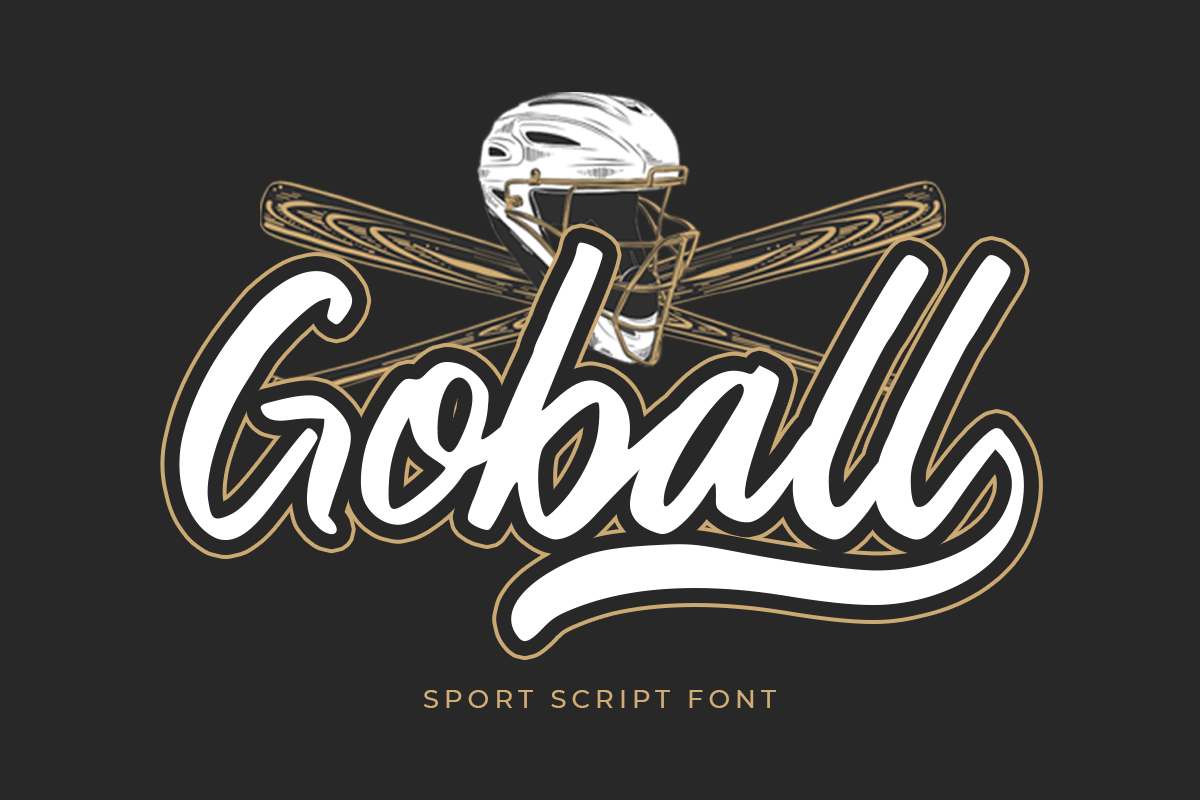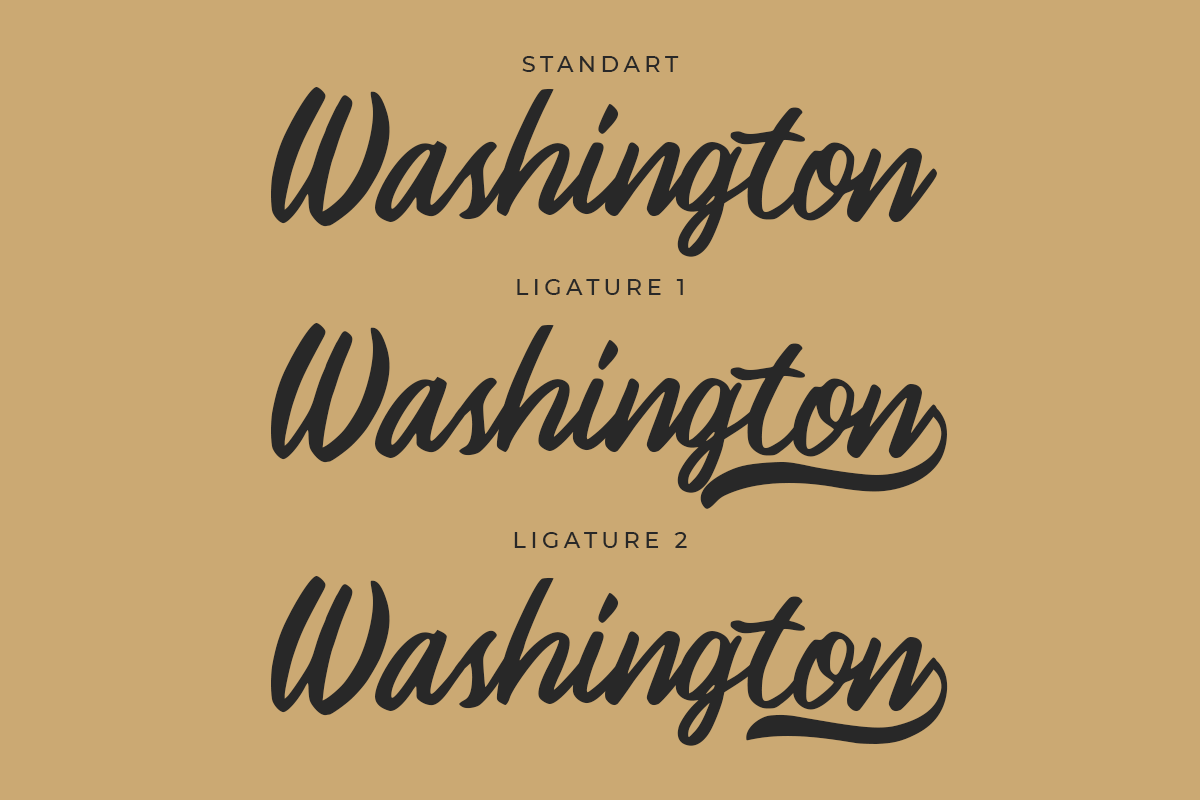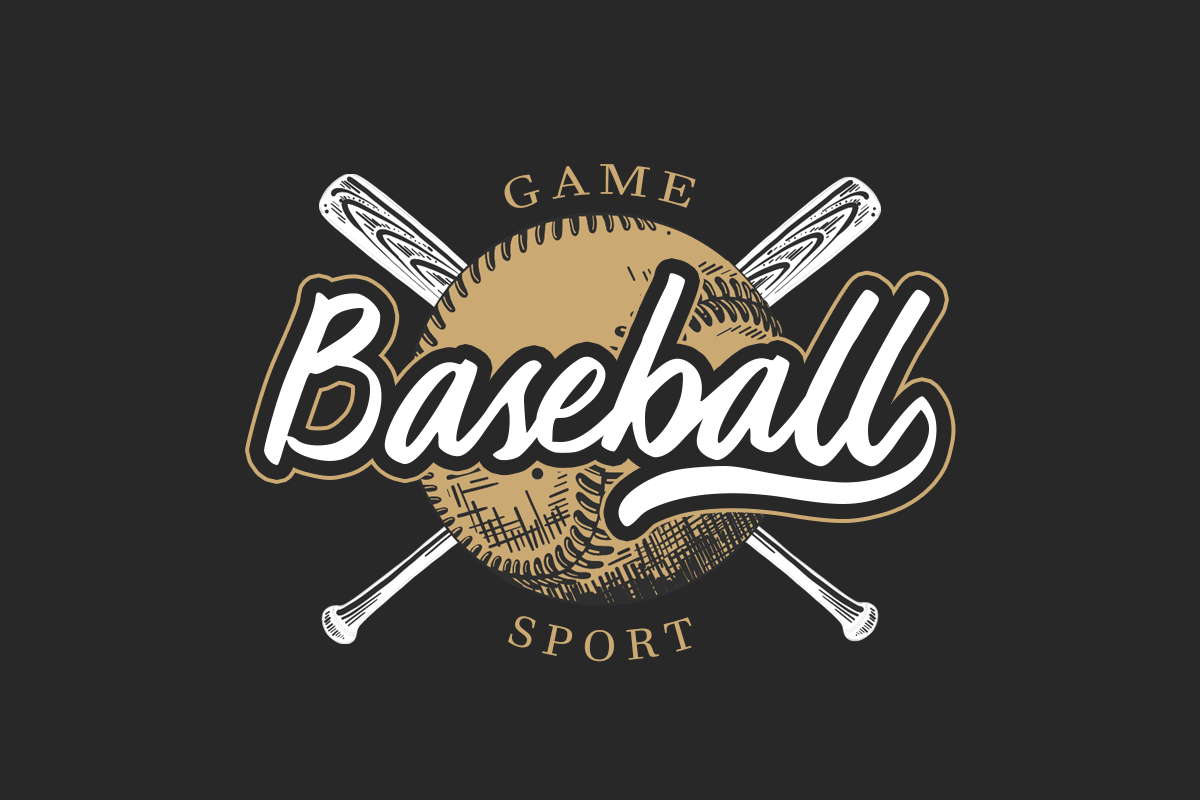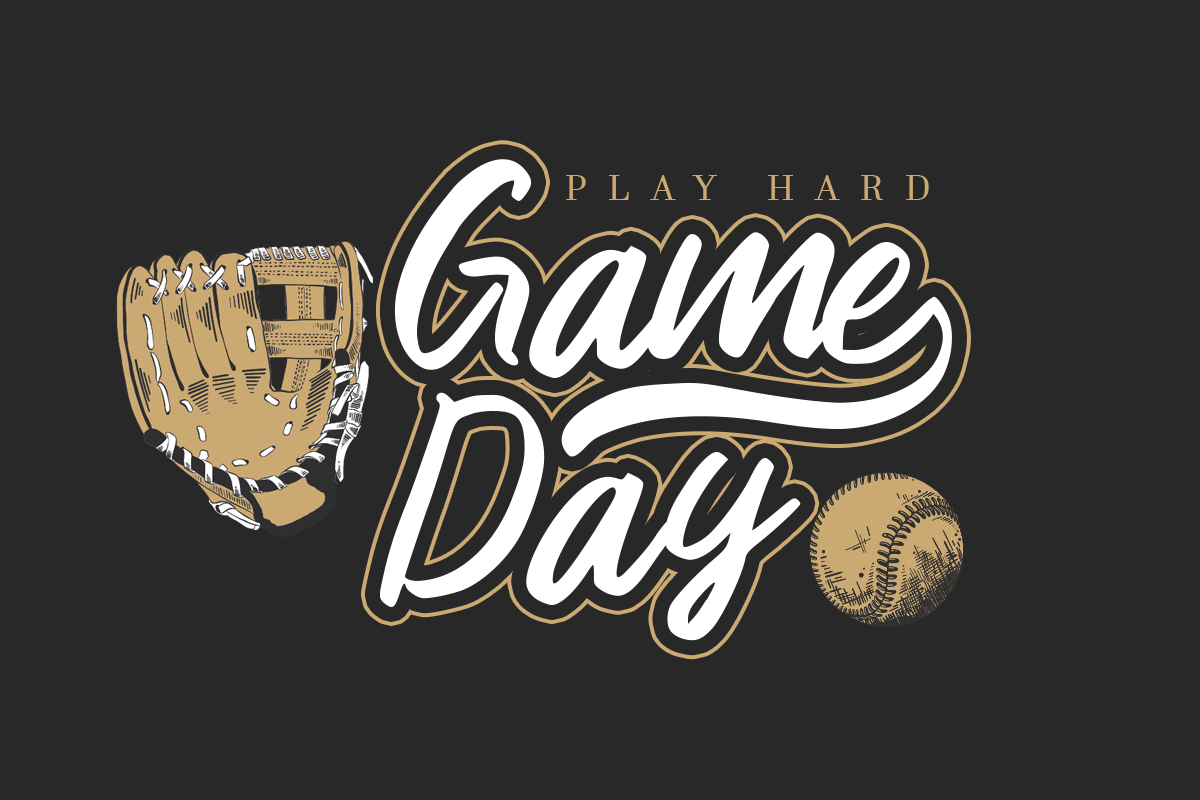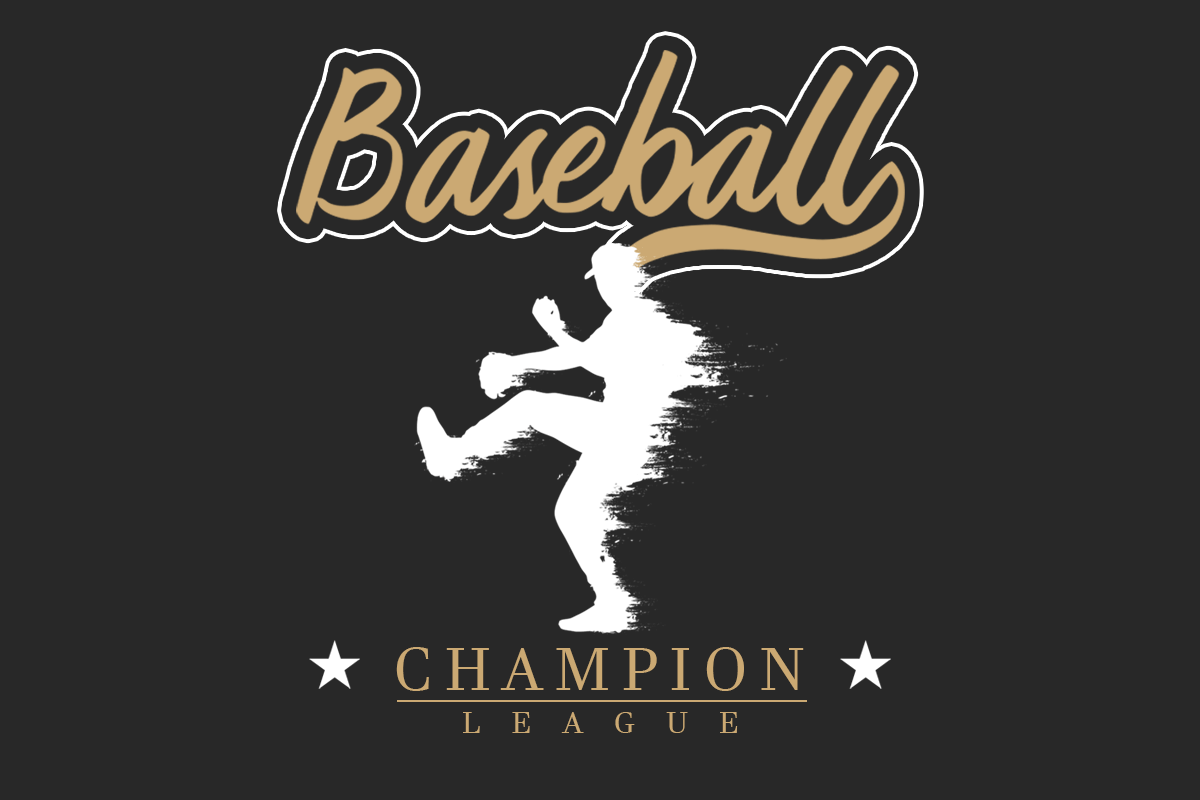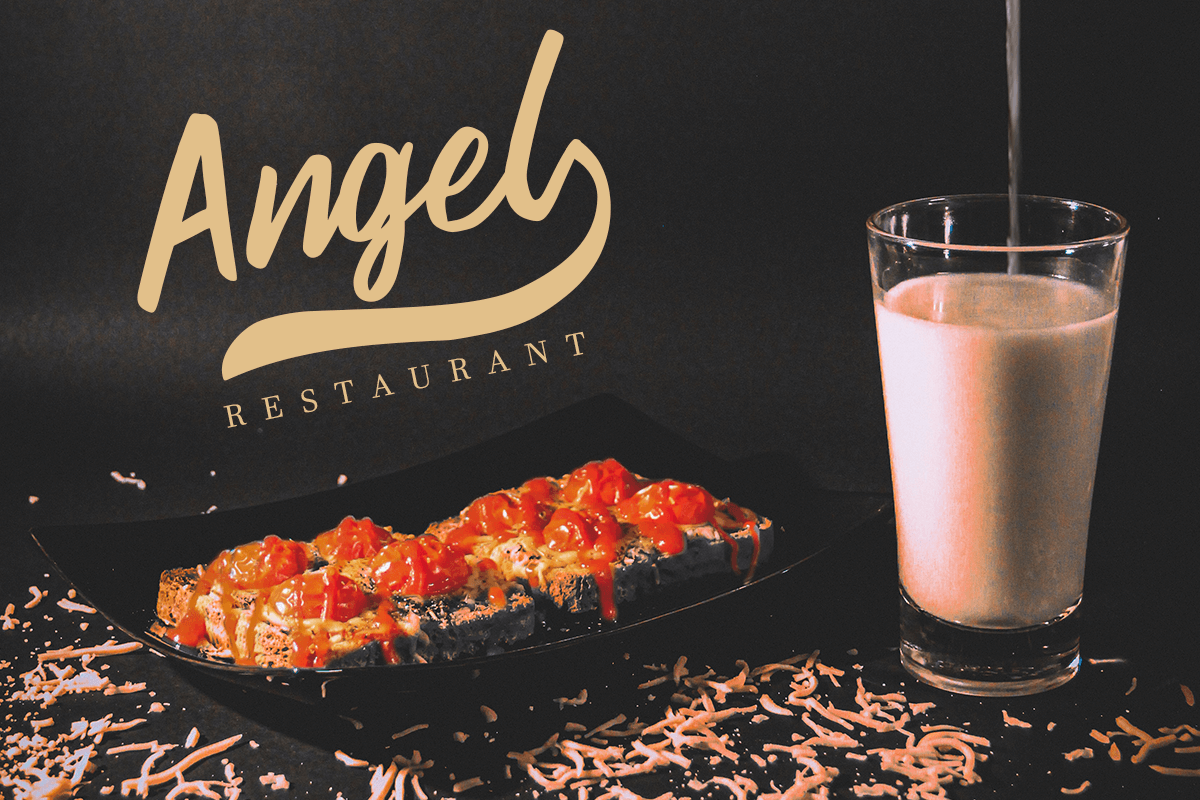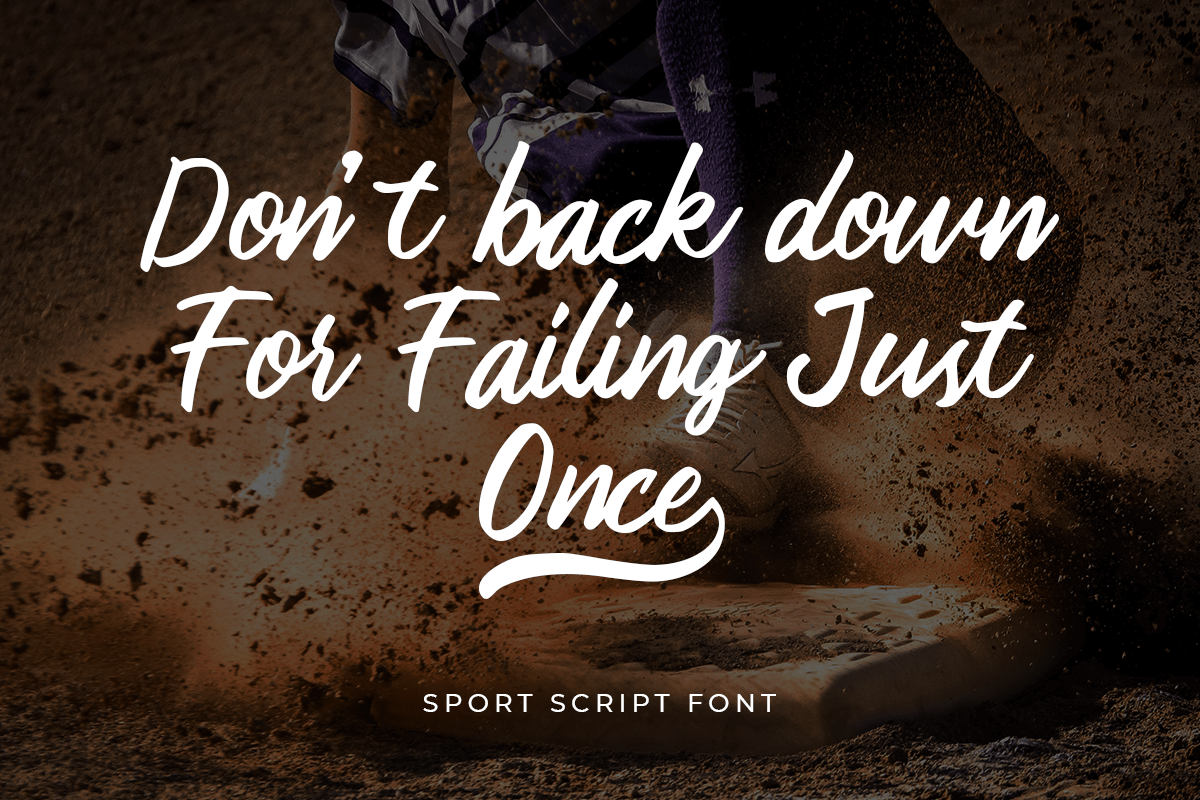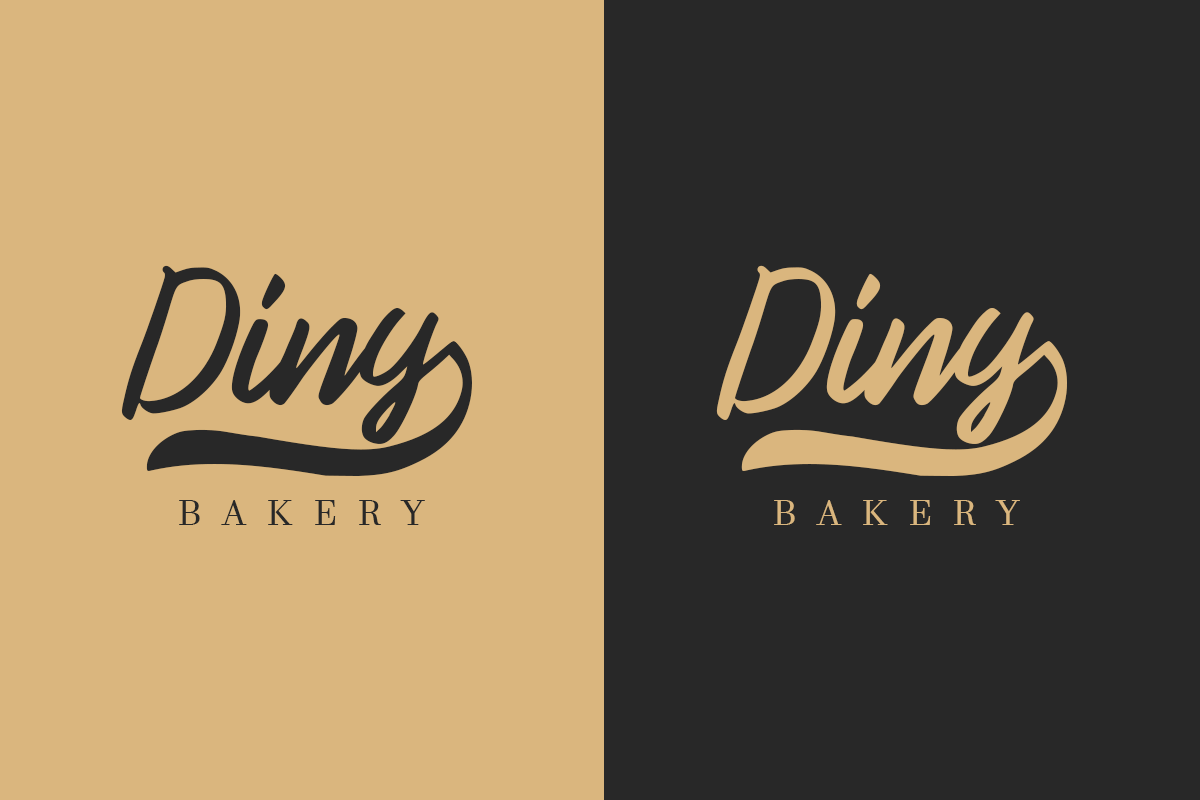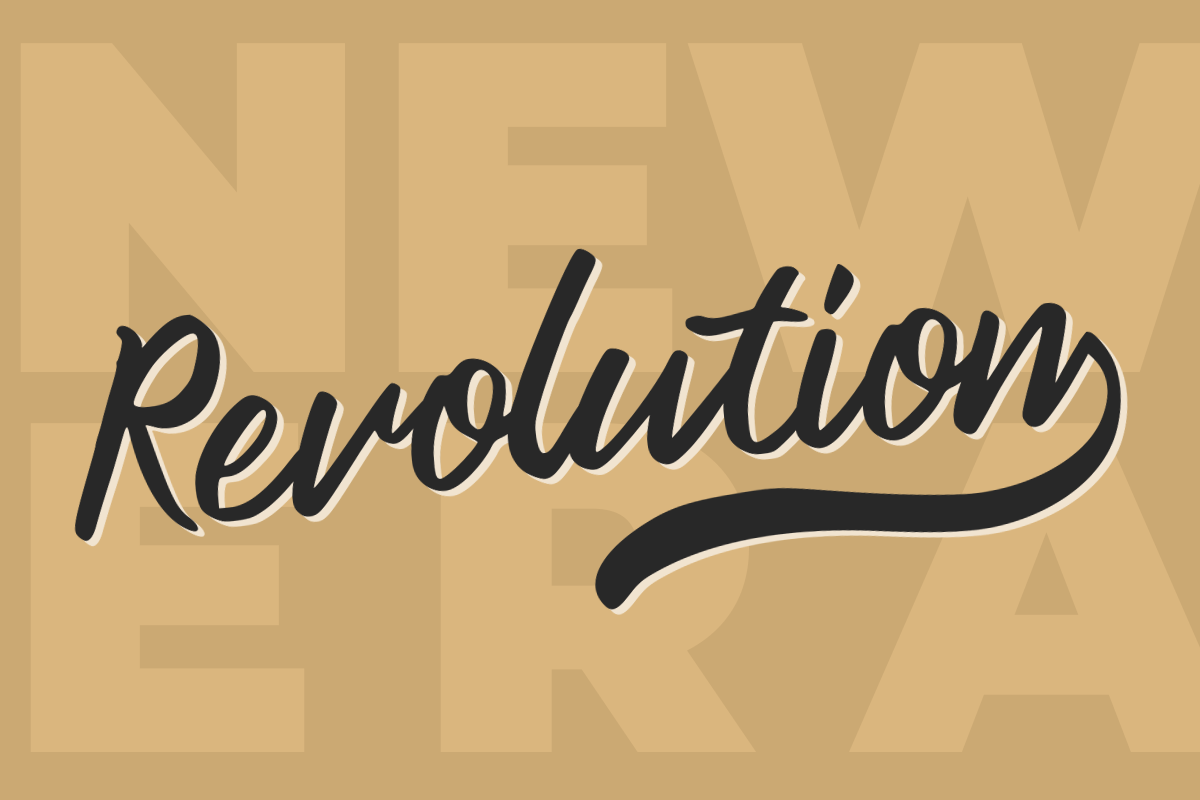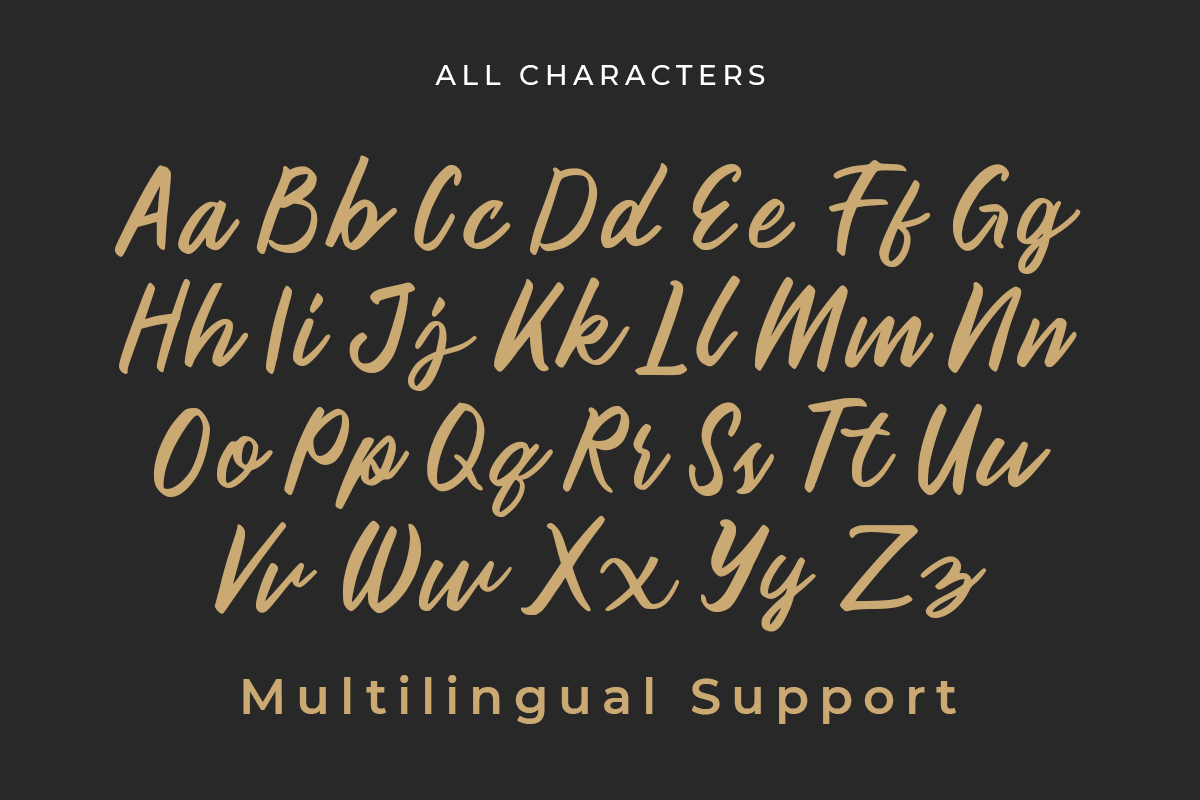
Goball
-Sport Script Font
Goball
Goball is A Sport Script Font that inspired from baseball and specially created for Baseball needs. This font ready for your sport needs, baseball design projects or baseball logo, unique, modern for any designs such as print, merchandise, and so many more with easy to use but unique results are so sport feels.
Enjoy to Design any your needs with sport, baseball, and modern feel.